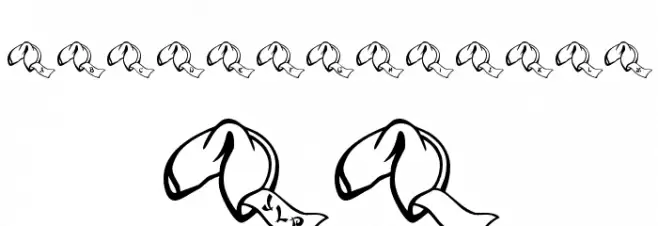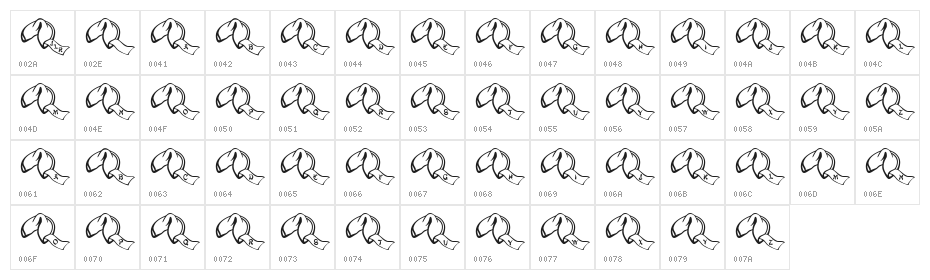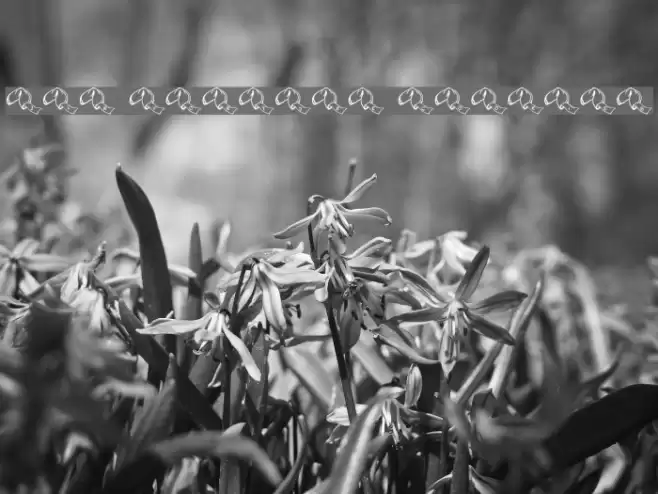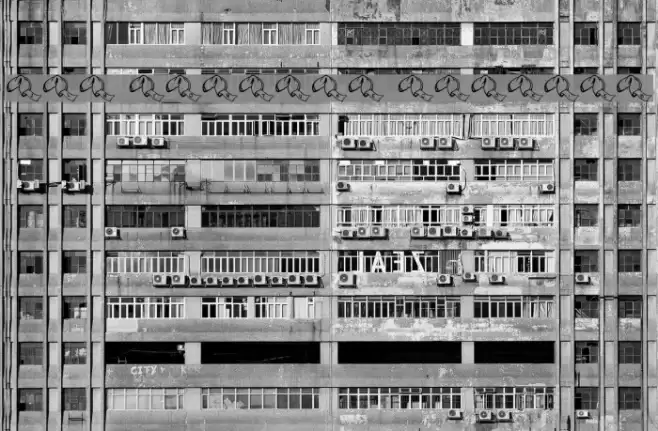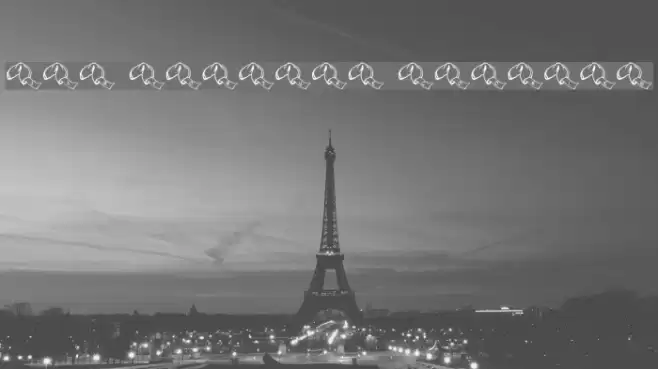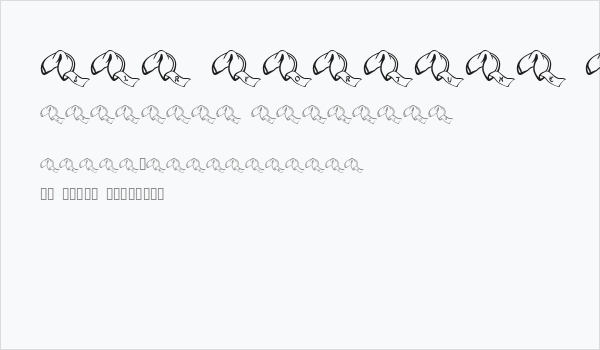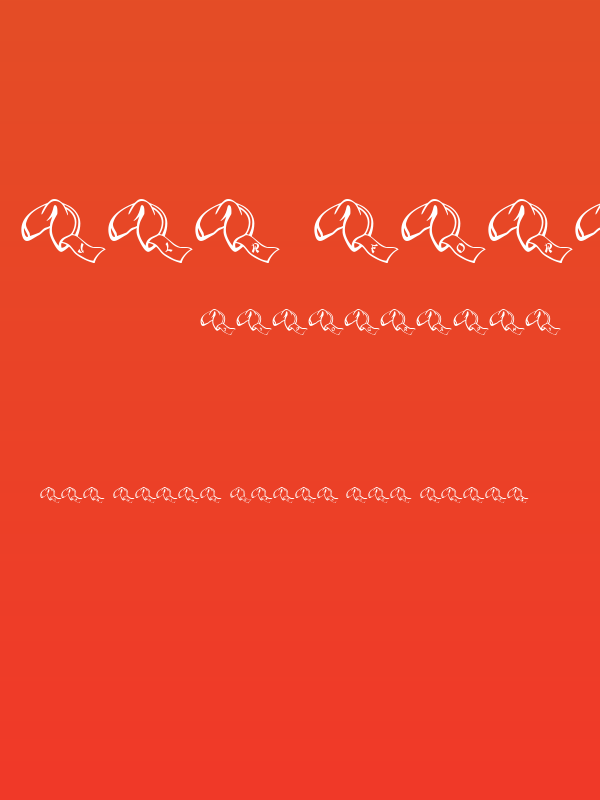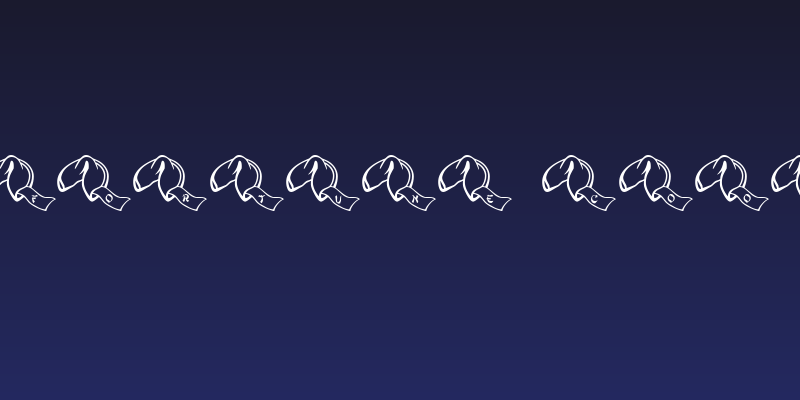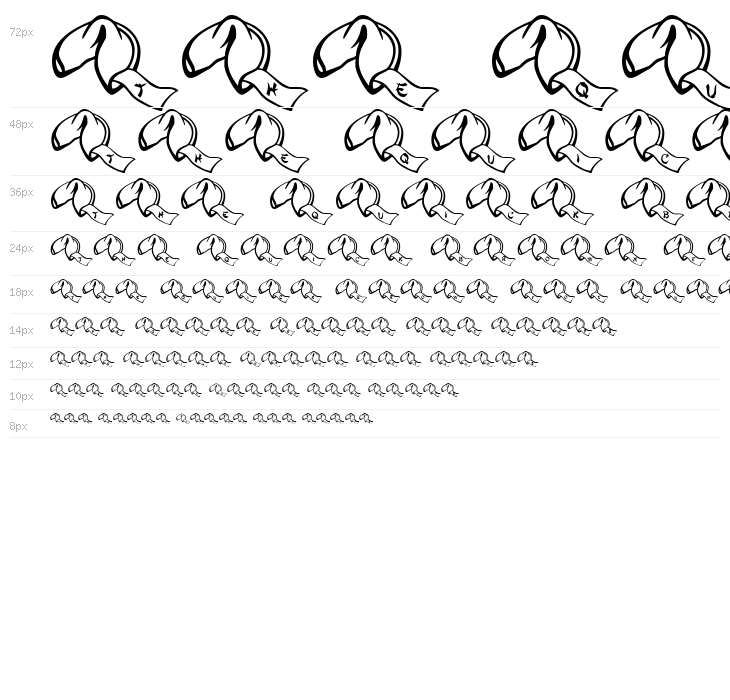
JLR Fortune Cookies Font
This design features a playful and whimsical representation of fortune cookies, each with a small slip of paper peeking out. The style is consistent across all characters, maintaining a light-hearted and fun aesthetic. The lines are clean and smooth, giving the design a polished look. The fortune cookies are slightly tilted, adding a dynamic and lively feel to the overall appearance. This design is ideal for projects that require a touch of humor and creativity, such as themed events or playful branding. The uniformity in the design ensures that it can be used cohesively across various applications.
Use CaseLogos, Themed events, Creative packaging
Proposed ProjectsIdeal for themed events, playful branding, or creative packaging designs.